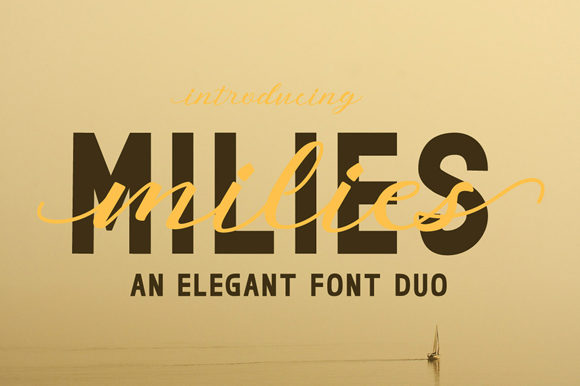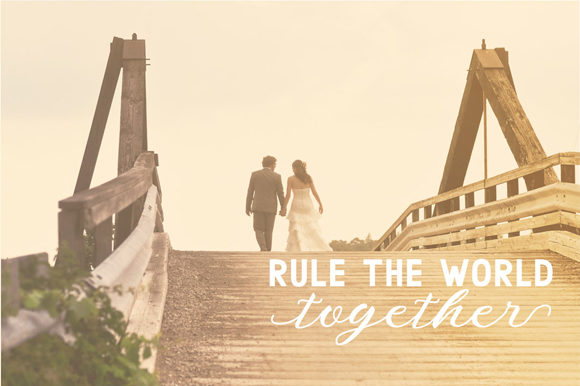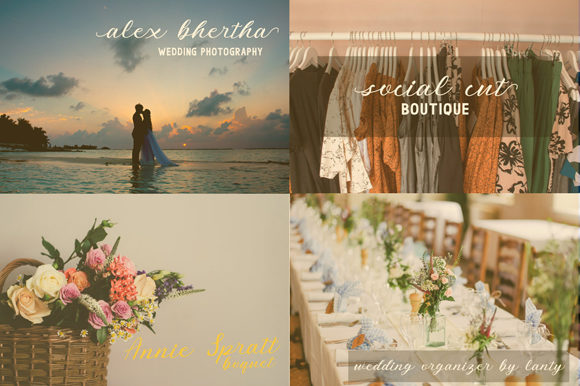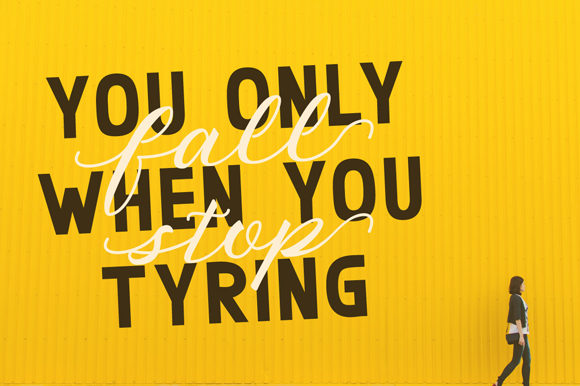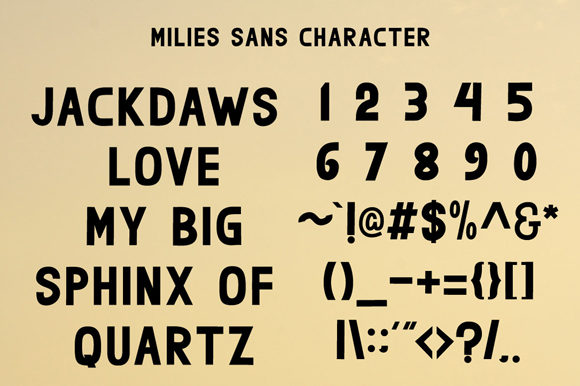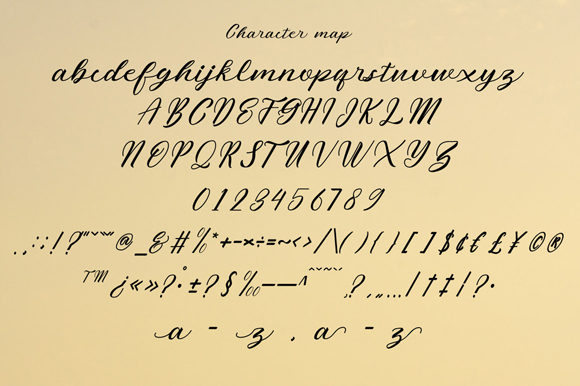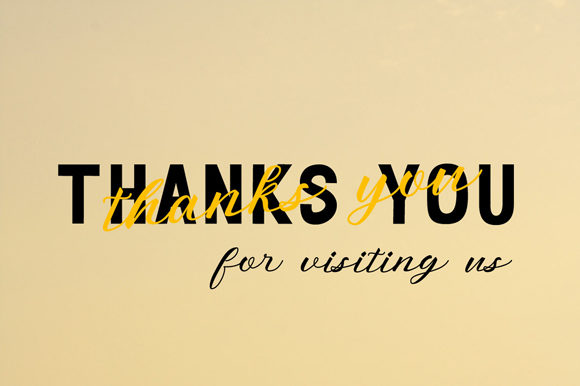
Milies Duo Font
About Milies Duo Font
The Millies is a beautiful font duo. It includes a block sans serif and a stylish calligraphy script which can be paired perfectly.
It has a striking and elegant style and it is perfect for creating greeting cards, quotes, branding, stationery designs, social media, packaging, magazine layouts, prints and more!